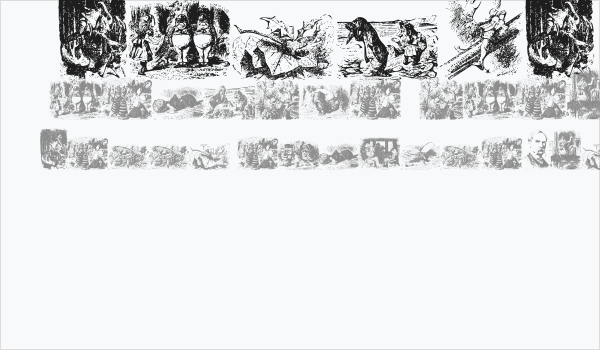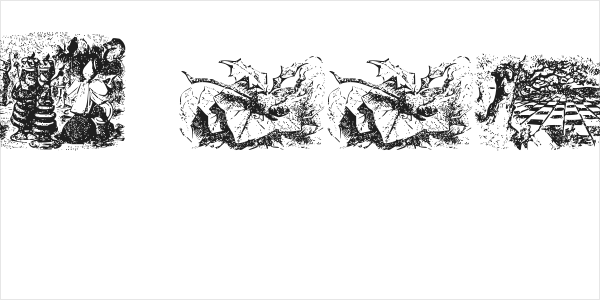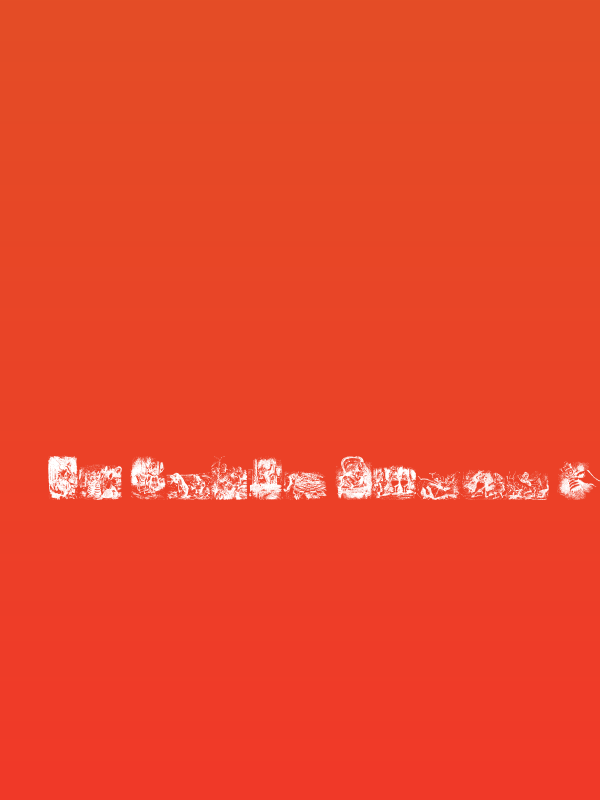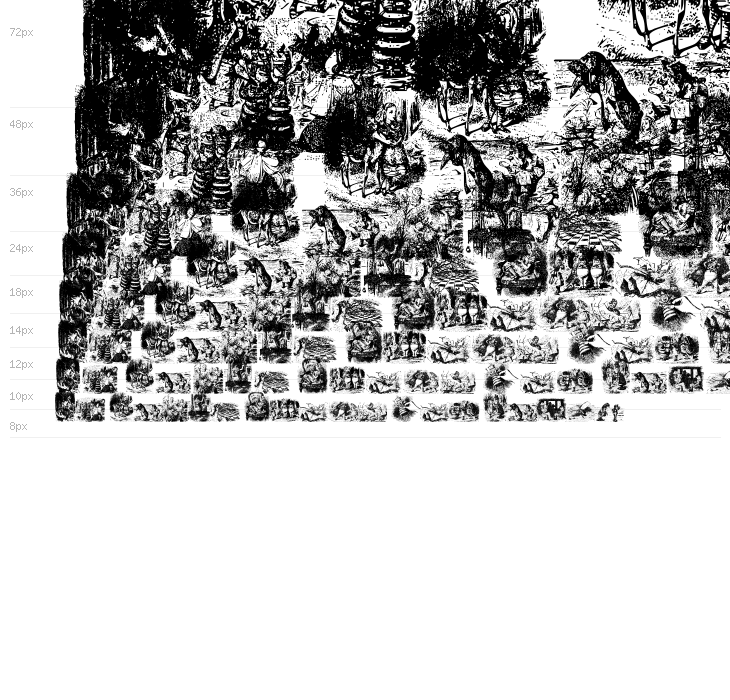
Through the Looking Glass1 Font
Through the Looking Glass1 Description
A decorative display font composed of intricate illustrations, each character formed by detailed black-and-white engravings reminiscent of Victorian-era book art. The glyphs are highly pictorial, with each letter or symbol represented by a unique scene or figure, making legibility secondary to visual storytelling.
| Overall Style | Vintage, Decorative |
| Use Case | Logos, Headlines, Artistic projects, Themed event materials |
| Proposed Projects | Book covers, literary posters, themed invitations, art prints, or projects referencing classic literature. |